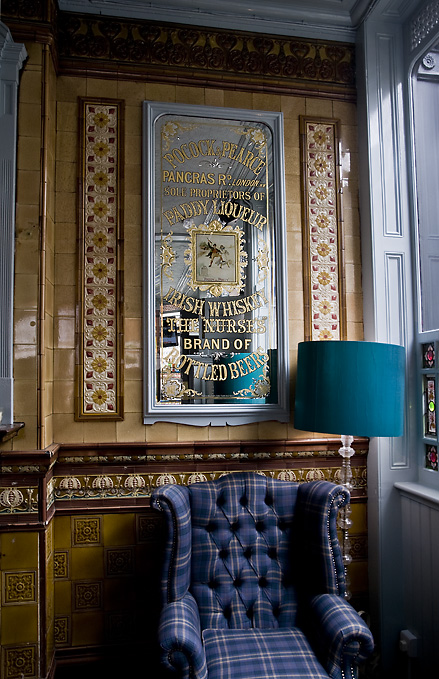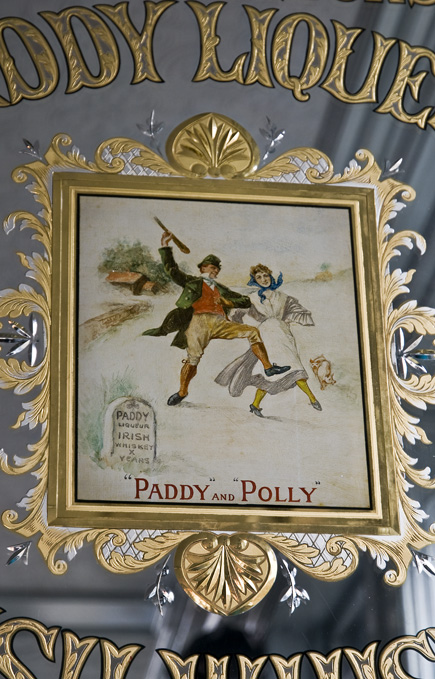
Antique London Glass Piece
While in London a few weeks ago found a small treasure in a place now called Inn 1888. Have included a few details which shows the depth of the etching....enjoy!!
oh...it is a Morris and Son advertising mirror and you can see by the layout of the place there must have been a half dozen or so at one time. This sole survivor is in a corner rather than the larger room. When I arrived the place was actually closed after some refurbishing and would have opened last week.
so many questions spring to mind about the gilded lettering, like how the heck did they get all those shades and layers??
does it really say 'the nurses brand of bottled beers'?
will take you to the place and yes.....it does say nurses brand. Pretty interesting Huh? Have asked Smitty to jump in here (as he has the most experience) but the long and short is there are several depths of acid etching in here (Hey!! Morris was a master) and you can see them clearly in the letters. How long exposures etc to the acid and the strengths, I have no idea. The old masters were the best me thinks.
Miles. The shades in the centre of the lettering were first white acid etched .The entire panel would have been covered with Brunswick black and then lead foil placed over the black for a second coat of protection against acid leakage and pinholes from the process. The brunswick was removed with spirits and then it looks like only one treatment of acid was used to knock back the centre letters probably one hour 4 to 1 and at the same time the top would of been cut and the brunswick removed and this area looks like two tonnes were used, it's all down to the pencil sketch that was produced first. They would have drawn this out full size and shaded it all to see what they were looking for in effects. In the centre of the letters the white acid finish has been either left untouched and that is why it is looking dark ,or a wash of acid was flooded over to take off a layer just to help the gold leaf stick well to this surface ,a bit like when you try to gild sandblasted glass it does not stay on well enough...
the time used for this treatment would of been less than two minutes..... hope that might help.